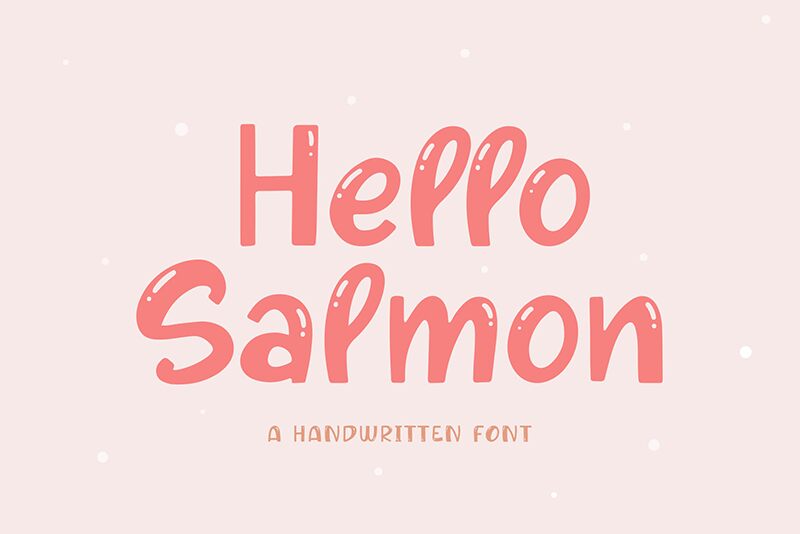
Say hello to Hello Salmon, the playful and eye-catching display font designed by BrandSemut. With its cartoon style and semi-bold weight, this font is perfect for adding a touch of fun to your creative projects. Use it for children's book covers, playful branding campaigns, or even animated videos. Its unique charm will grab the attention of anyone who lays eyes on it. Whether you're designing a logo or creating social media graphics, Hello Salmon is sure to bring a smile to your audience's face. Give your next project a splash of color and personality with Hello Salmon!